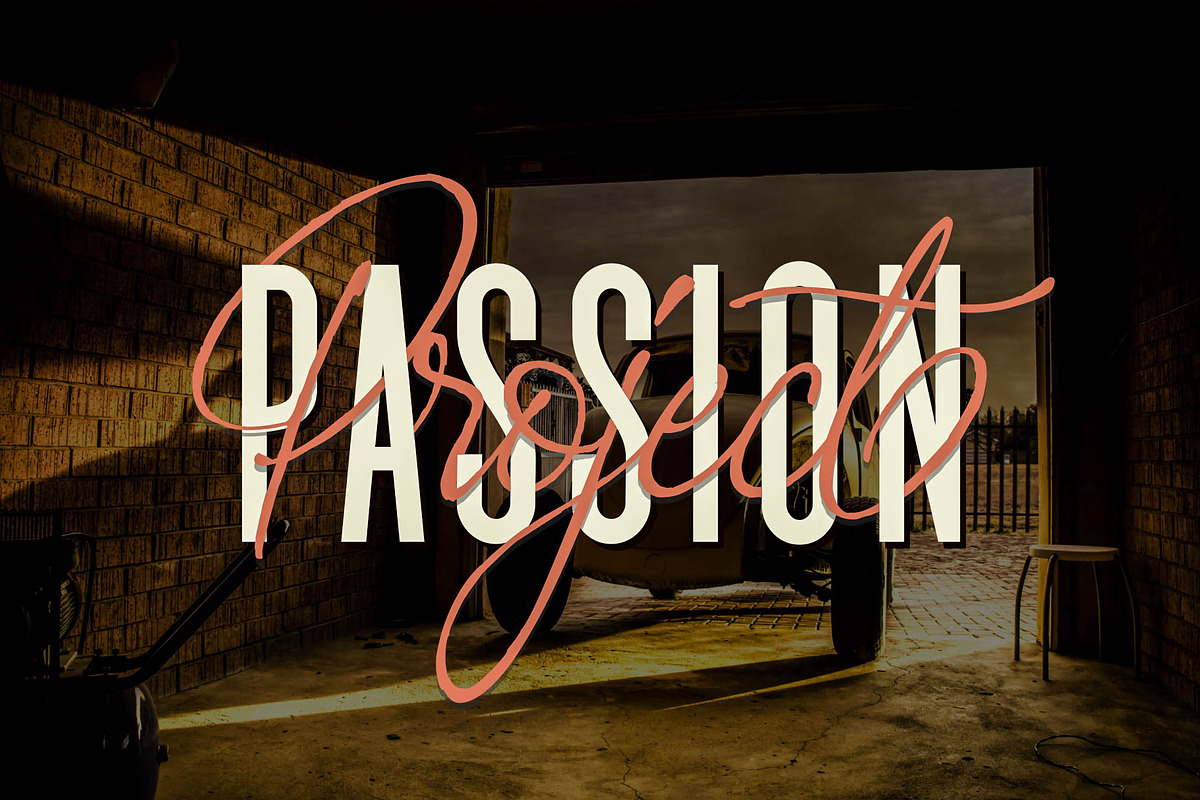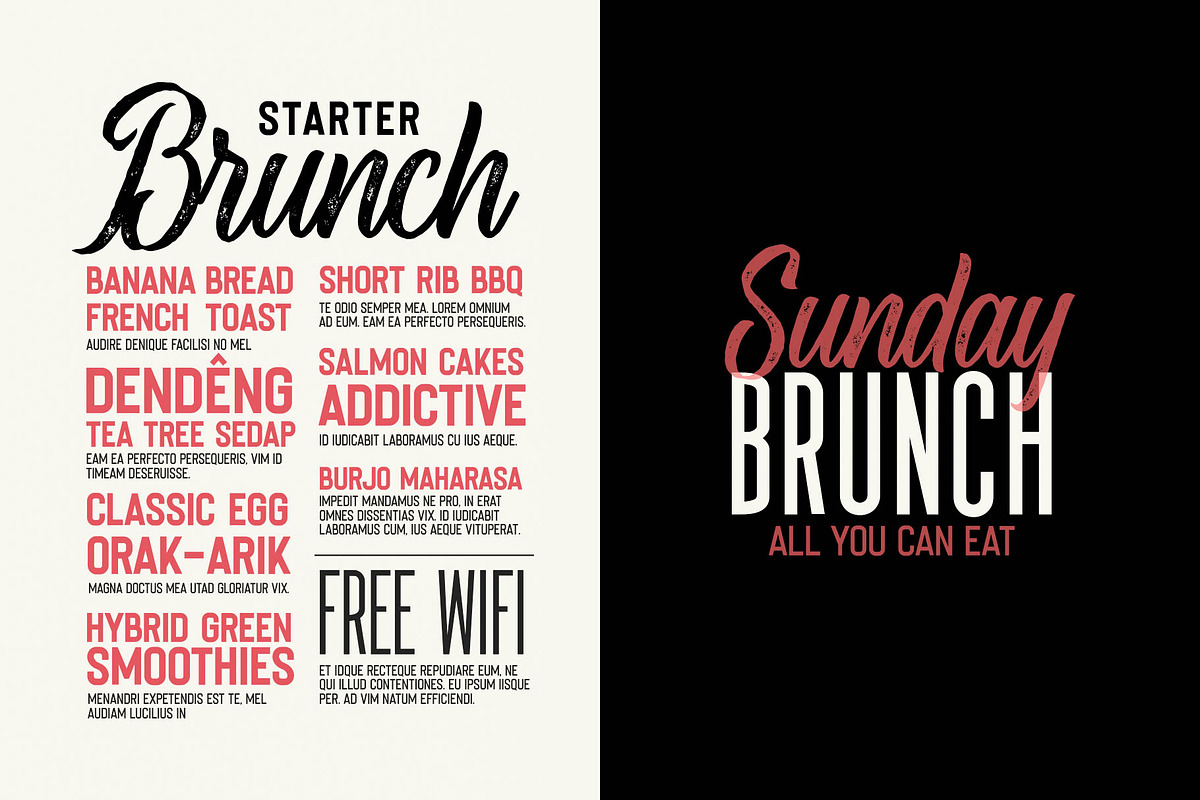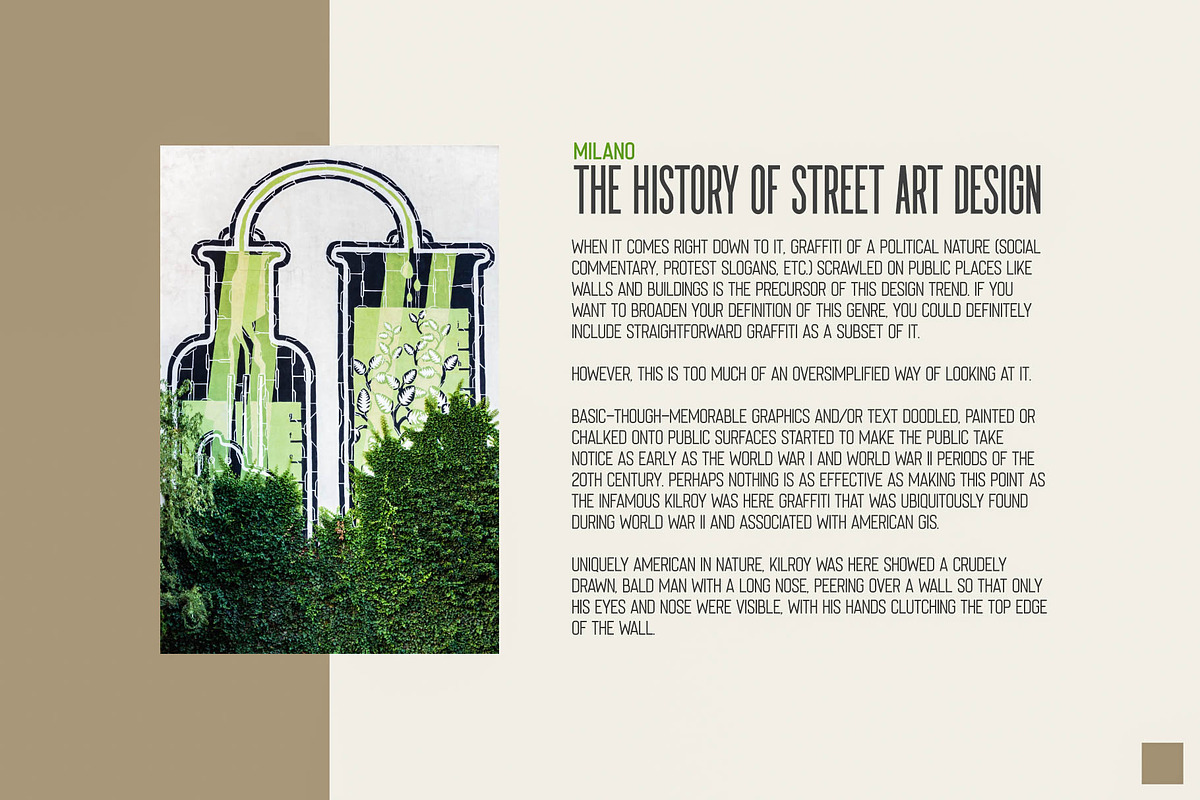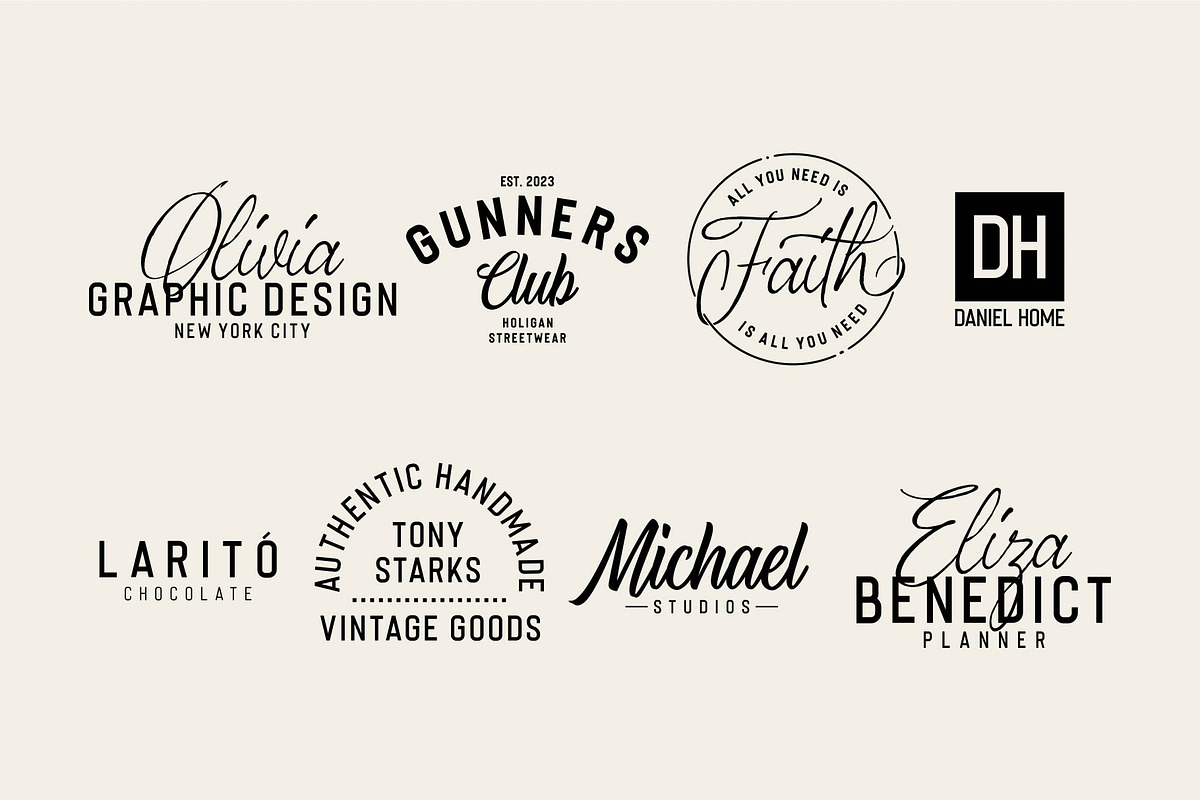
The Perfectly Imperfect Font Collection is Useful Pairing Combo. This handy collection makes it easy for us to pair typefaces instantly. Each font is a new font (Fresh) and is only available here.
These are perfect for Logos, Advertising, Apparel Design, Lettering, Typography, Labels, Signage, Etc.
This collection include 12 Typefaces and come with 2 different styles; Clean & Rough. This complete package also contains variations of Sans Serif and Script Fonts. Save your time and save your money.